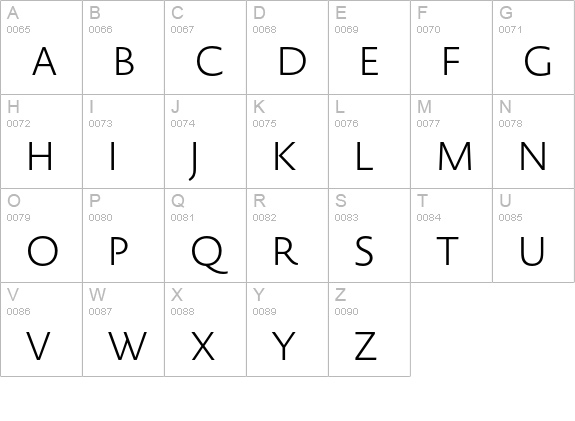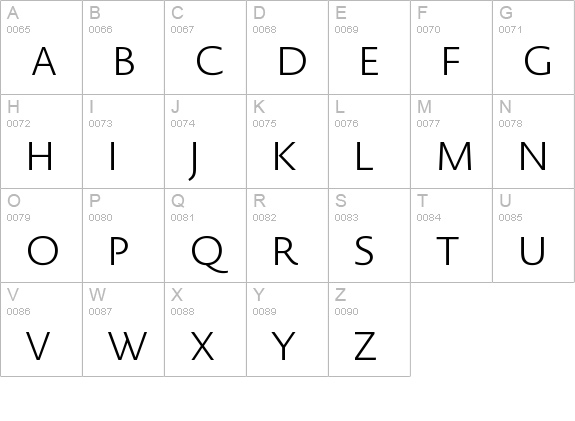
Novel Sans Pro ExtraLight is an airy, ultra-refined variant in the Novel typeface family \xE2\x80\x94 well suited to minimalist headlines and refined display use.
Novel Sans Pro ExtraLight font is a delicate and elegant typeface that exudes a sense of sophistication and modernity. Its slender and graceful letterforms make it perfect for conveying a sense of lightness and finesse in any design project. The generous spacing and clean lines of this font ensure excellent readability, making it ideal for both body text and display purposes. What makes Novel Sans Pro ExtraLight font even more appealing is that it is freely available to download at FontsMarket.com. This means that you can easily access this beautiful typeface and incorporate it into your designs without any cost. Whether you are working on a branding project, editorial layout, or website design, Novel Sans Pro ExtraLight font is a versatile and stylish choice that will elevate your work to the next level. Embrace the beauty and simplicity of this font today and bring a touch of sophistication to your designs.